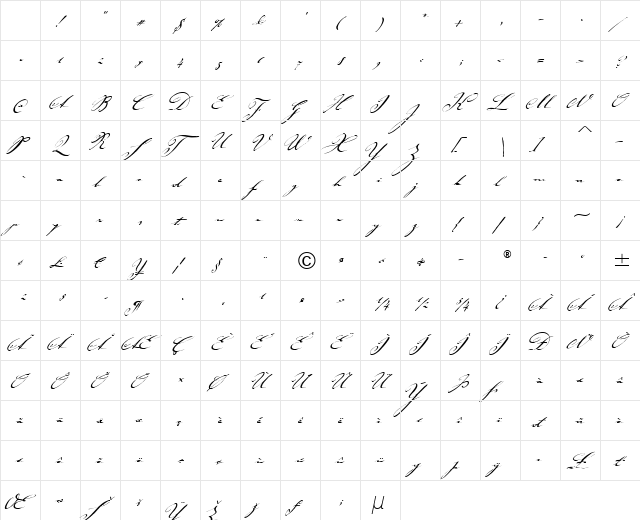
Complete Johann Sparkling ITC Light Italic glyph index. Displaying only characters natively supported by Johann Sparkling ITC Light Italic font.
Johann Sparkling ITC is a composed and adaptable typeface that performs quietly and consistently across a wide range of design contexts. The slanted form adds forward momentum and visual energy. Its slender proportions lend an understated elegance to any composition.